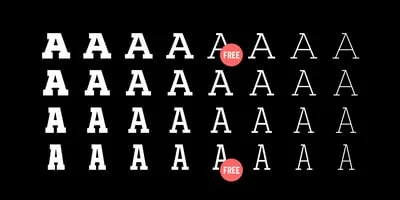
Novecento Slab Font
Novecento Slab Font is perfect for vintage poster designs, retro advertising campaigns, classic book covers, historical museum exhibits, Art Deco branding, heritage brand packaging, nostalgic restaurant signage, period film titles, antique shop materials, and sophisticated vintage-inspired marketing.
What makes Novecento Slab Font so exciting is its masterful blend of early 20th-century elegance with contemporary design sensibilities. This distinguished slab serif typeface features bold geometric forms, robust letterforms, and timeless proportions that evoke the golden age of typography and design craftsmanship, making it the ideal choice for brands that want to communicate heritage, quality, and enduring sophistication with a touch of nostalgic charm.
The Novecento Slab Font family includes ultra light, light, regular, medium, bold, and black weights, each available in normal and wide versions. Additional features encompass period-appropriate ornaments, vintage symbols, classic numerals, and comprehensive character sets that honor traditional typographic excellence while meeting modern design requirements.
Whether you're designing for luxury heritage brands or contemporary companies seeking vintage appeal, Novecento Slab Font provides the authentic period character needed to communicate timeless quality and sophisticated craftsmanship. The font's historically inspired letterforms ensure exceptional impact while maintaining perfect readability across all applications and time periods.
This classically crafted typeface excels in both premium print applications and modern digital environments. The Novecento Slab Font maintains its distinguished vintage character whether displayed in elegant packaging or contemporary websites, making it essential for brands that value tradition, craftsmanship, and the enduring appeal of classic design.
Step into timeless elegance with Novecento Slab Font and experience typography that bridges the golden age of design with contemporary sophistication and lasting style.